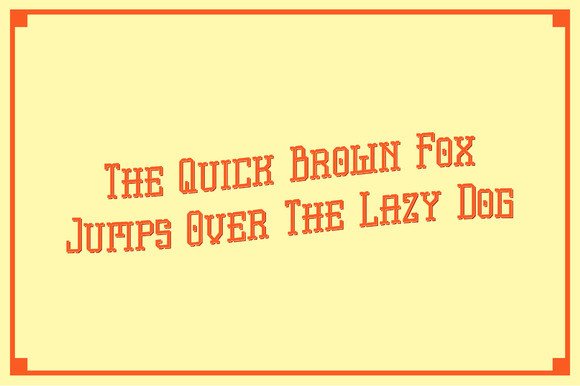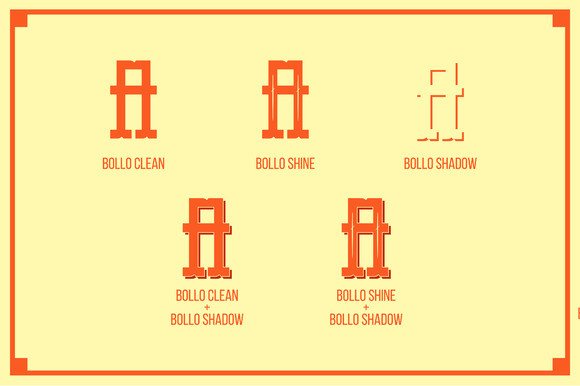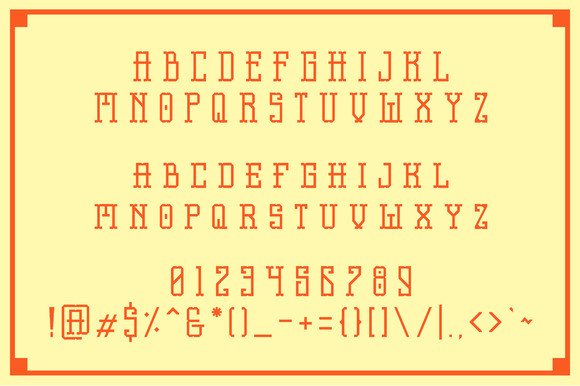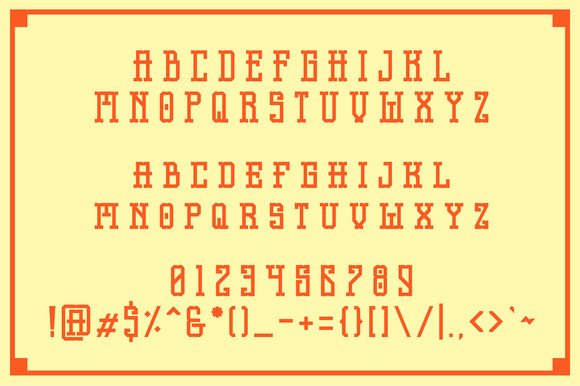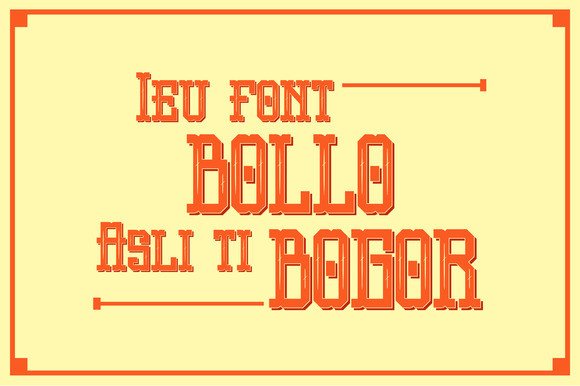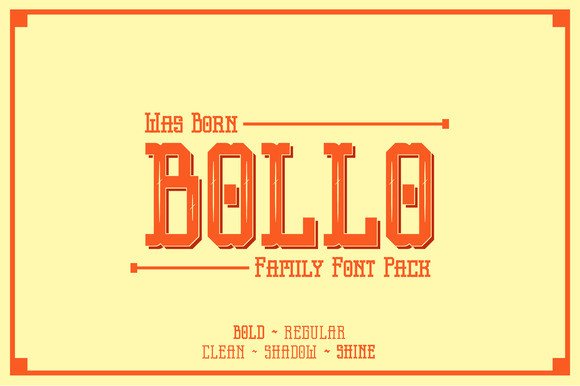
Introducing Bollo Font: A Unique Vintage Display Font
Are you tired of using the same old fonts in your designs? Look no further! Bollo Font is a one-of-a-kind vintage display font that’s sure to add a touch of elegance and sophistication to your projects. With its beautiful serif design and unique old school look, Bollo Font is perfect for designers and crafters looking to add some personality to their work.
What Makes Bollo Font Special?
Bollo Font is a carefully crafted font that’s been designed to give you a unique and stylish look. It comes in two weights: regular and bold, giving you flexibility and versatility in your designs. But that’s not all – each weight also comes in three styles: clean, shine, and shadow. This means you have a total of six fonts at your disposal: Bollo Clean Regular, Bollo Clean Bold, Bollo Shine Regular, Bollo Shine Bold, Bollo Shadow Regular, and Bollo Shadow Bold.
Combining Styles for a Unique Design
One of the best things about Bollo Font is the ability to combine styles to create a unique design. For example, you can pair the shadow and shine styles to create a stunning effect that’s sure to grab attention. The possibilities are endless, and it’s up to you to experiment and come up with a design that truly reflects your personality and style.
Bollo Font is perfect for designers and crafters who want to add a touch of vintage charm to their work. Whether you’re working on a logo, brochure, or website, Bollo Font is sure to make your design stand out. The font is also great for crafting projects, such as making signs, banners, or other DIY projects.
Key Features of Bollo Font
• Unique vintage display font
• Beautiful serif design
• Two weights: regular and bold
• Three styles: clean, shine, and shadow
• Six fonts included: Bollo Clean Regular, Bollo Clean Bold, Bollo Shine Regular, Bollo Shine Bold, Bollo Shadow Regular, and Bollo Shadow Bold
• Perfect for designers and crafters
Here are a few tips and tricks to help you get the most out of Bollo Font:
• Experiment with different style combinations to create a unique look
• Use the bold weight for headlines and the regular weight for body text
• Pair Bollo Font with other fonts to create a contrasting effect
• Use the shine and shadow styles to add depth and dimension to your design
Bollo Font is a unique and stylish vintage display font that’s perfect for designers and crafters. With its beautiful serif design and multiple style options, Bollo Font is sure to add a touch of elegance and sophistication to your projects. Whether you’re working on a logo, brochure, or website, Bollo Font is a great choice. So why wait? Download Bollo Font today and start creating stunning designs!